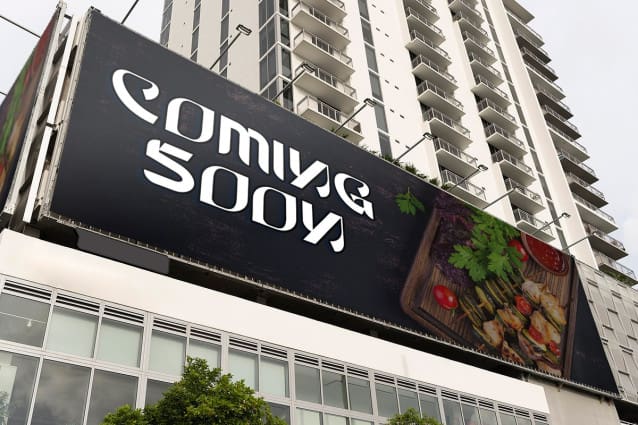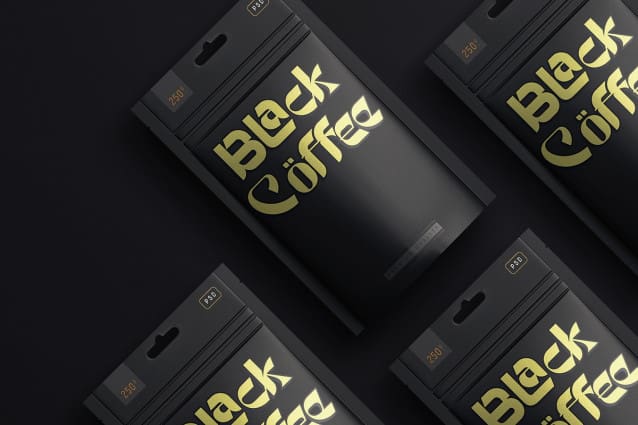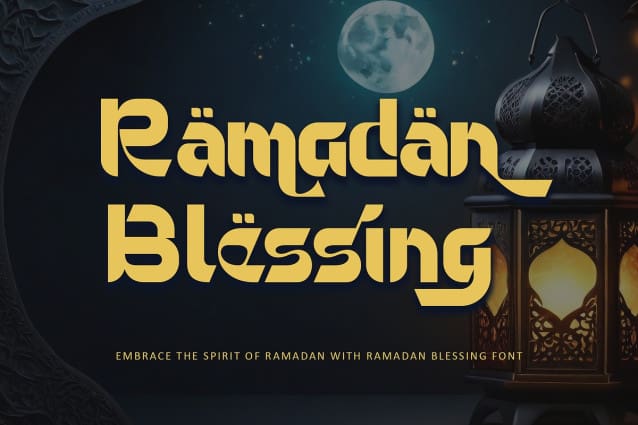
Ramadan Blessing Font
Ramadan Blessing Font is an elegant Arabic-styled display font family that embodies the spirit of the holy month, infusing your designs with an authentic Islamic touch. Its unique characters and serif design ensure readability internationally, making it perfect for various graphic design projects related to Islamic themes. The font family includes regular, italic, bold, bold italic, thin, and thin italic variants, offering versatility for all your design needs. With PUA encoding for easy access to all glyphs and swashes, “Ramadan Blessing” allows you to create effortlessly and embrace the blessings of Ramadan in your designs